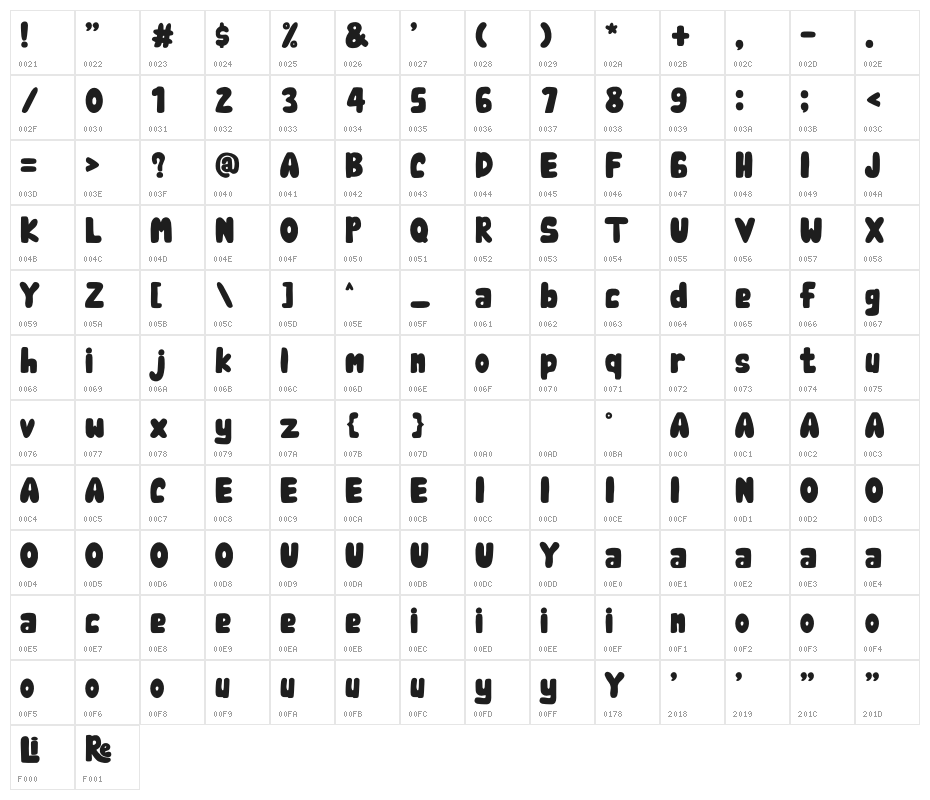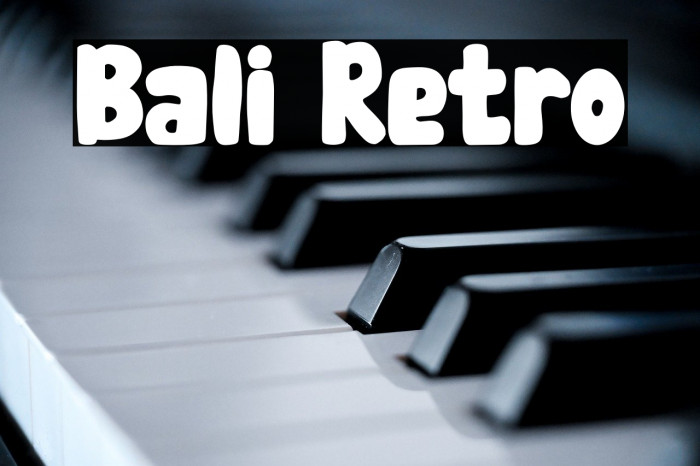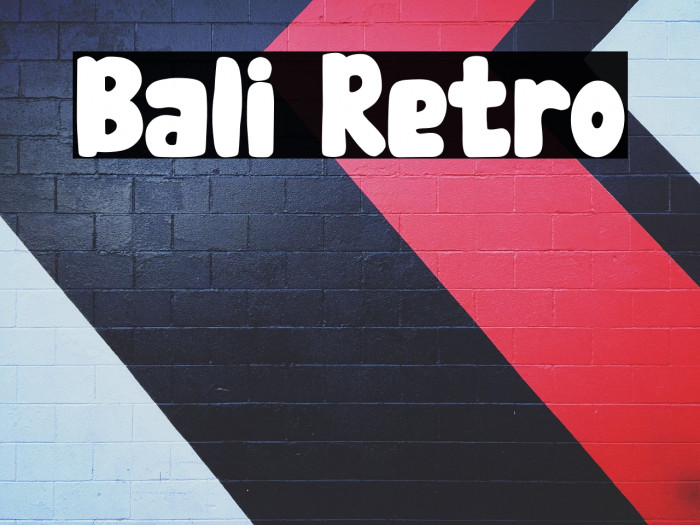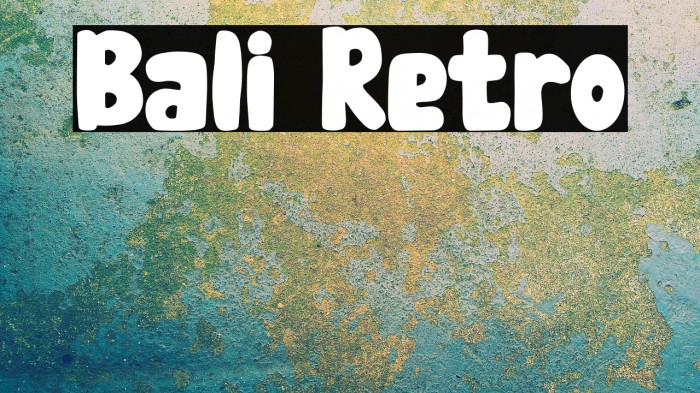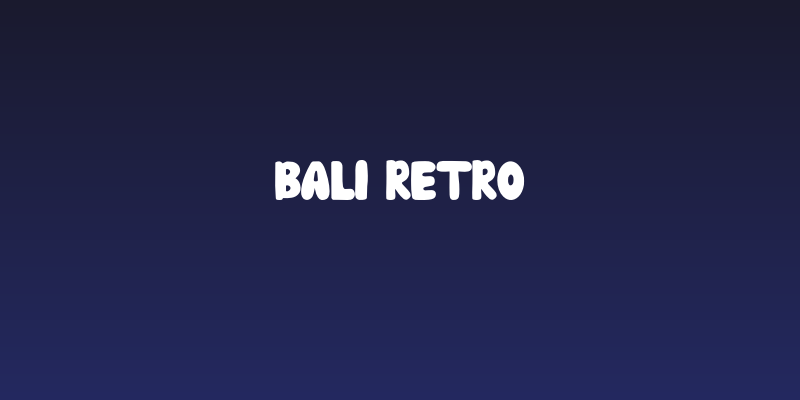
Bali Retro Font
Bali Retro Description
This font features a bold and playful design with rounded edges and a thick, uniform stroke. The characters are heavily weighted, giving them a substantial presence on the page. The style is reminiscent of retro and vintage aesthetics, with a touch of whimsy that makes it stand out. The uppercase and lowercase letters maintain a consistent style, with the lowercase having a slightly more compact appearance. Numbers and special characters are designed to match the overall playful theme, making them ideal for creative projects. The font's boldness ensures high visibility, making it suitable for eye-catching designs.
| Overall Style | Retro, Vintage, Playful |
| Proposed Projects | Ideal for posters, logos, branding, children's books, and any project needing a fun, retro touch. |